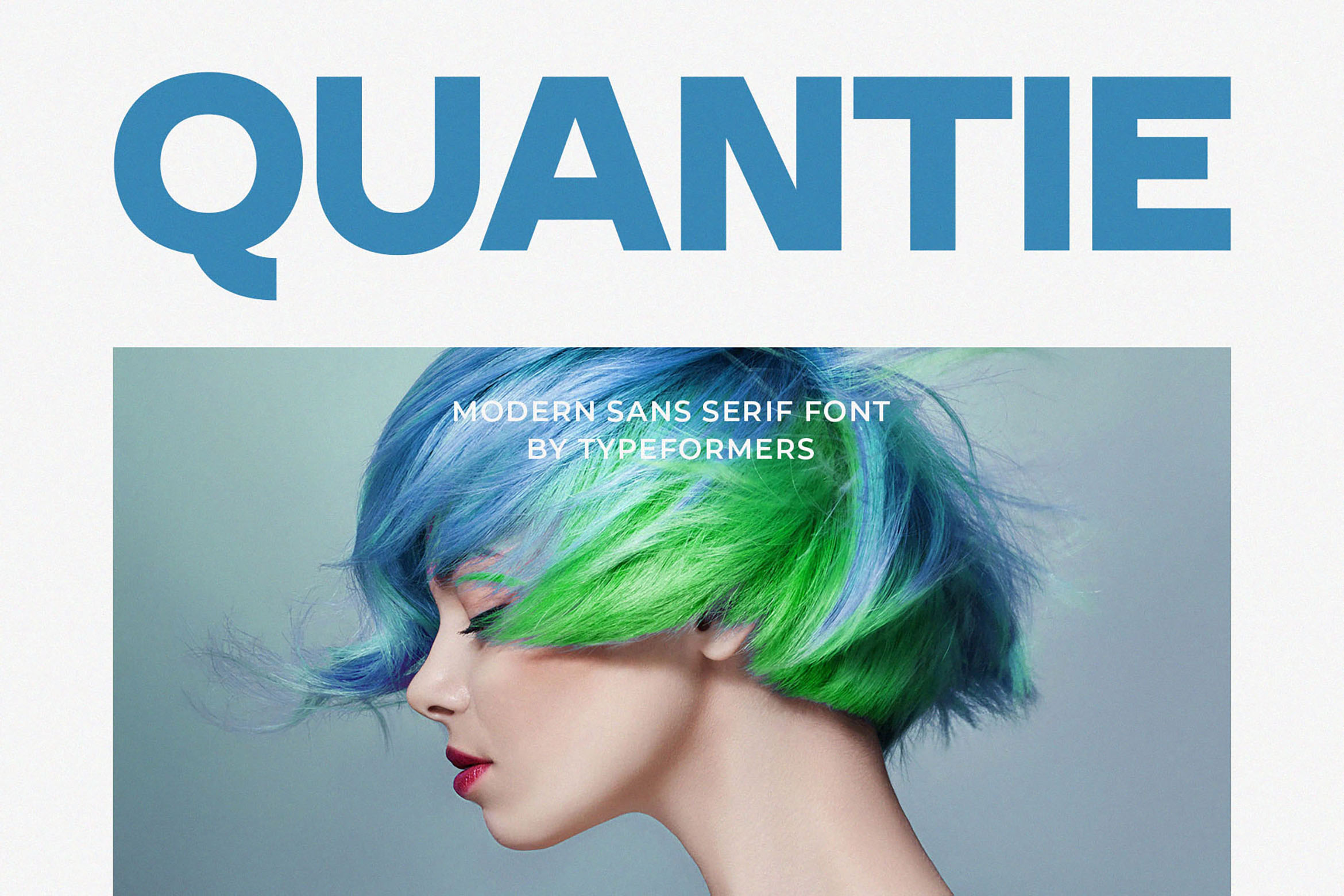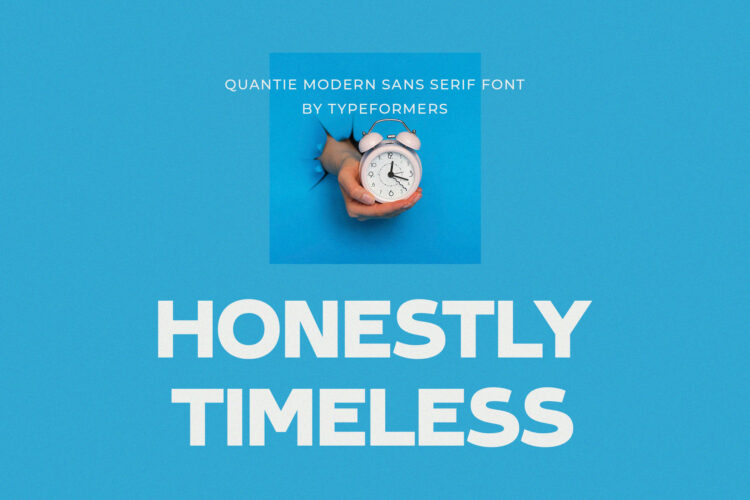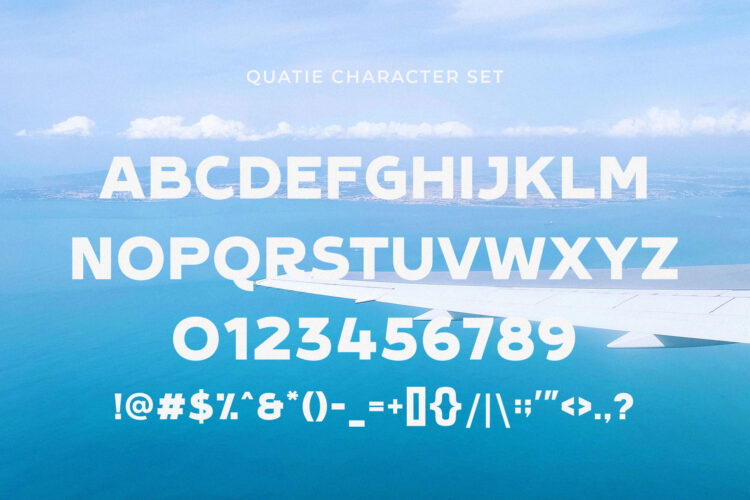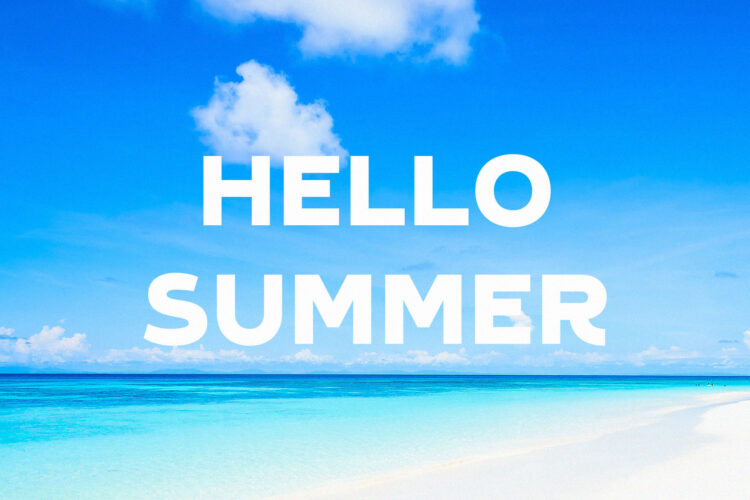
Introducing Quantie – Modern Sans Serif.
Quantie is a modern and simple font, best used as a display for headings, logos, branding, magazines, product packaging and invitations.